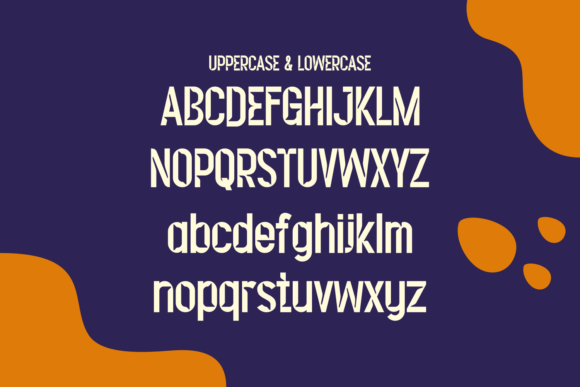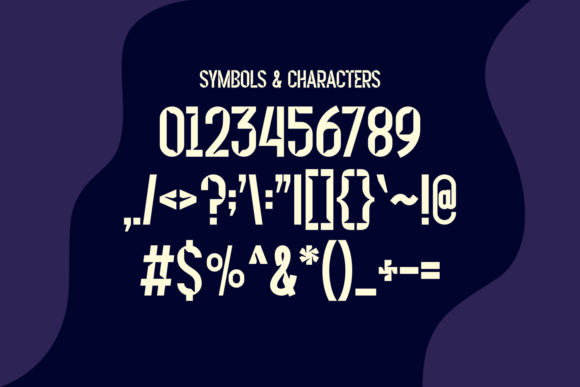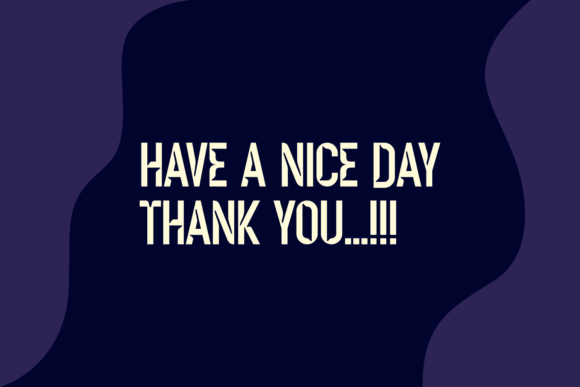
Introduction to Skyters Font
Have you ever been brainstorming a creative project and suddenly, the perfect font pops into your mind? For designers, this moment is pure magic. It’s the spark that sets the tone for an entire project, and for many, it’s the difference between a good design and a great one. This is exactly what happened when we stumbled upon the Skyters Font, a bold display font that’s perfect for making a statement.
We fell in love with its high-quality design, and we know you will too. Whether you’re working on a branding project, creating a magazine cover, or designing a t-shirt, the Skyters Font is an excellent addition to your design resource library. With its transparent background and versatility, it’s a game-changer for any creative project.
Key Features of Skyters Font
- High-quality design resource ideal for creative projects and professional use
- Unique, modern design with a transparent background, allowing for easy layering and customization
- Suitable for a wide range of creative projects, including logos, typography, and graphic design
Honest Review: Skyters Font
I recently had the chance to work with the Skyters Font for a creative project and I must say, it’s been a game-changer. The design resource is incredibly versatile and can be used for a wide range of applications, from branding to digital media.
What works well: ✨ The Skyters Font is a high-quality font with a transparent background, making it easy to overlay on any image or design. The font itself is modern and sleek, perfect for creating a professional look. I also appreciate that it’s available for free download, making it an excellent addition to any designer’s toolkit.
What doesn’t work well: ⚠️ While the Skyters Font is generally well-behaved, I did encounter some issues with font rendering on certain platforms. Additionally, the font’s complexity may make it difficult for some users to customize.
Overall, I’m thoroughly impressed with the Skyters Font. Its high quality, versatility, and transparency make it an excellent choice for designers looking to elevate their creative projects. While there are some limitations to be aware of, I believe the benefits far outweigh the drawbacks.
- High-quality font with transparent background
- Perfect for branding, digital media, and creative projects
Tips for Getting the Most Out of Skyters Font
Use the Skyters Font in combination with other high-quality design resources to create a cohesive and professional look. Experiment with different font sizes and styles to add visual interest to your design. Use the transparent background of the Skyters Font to create a clean and minimalist look.
The Skyters Font is perfect for use in a variety of creative projects, including logo designs, business cards, and social media graphics. Its high-quality design and transparent background make it ideal for use in digital designs, such as websites and mobile apps.
Yes, the Skyters Font is designed to work well with transparent backgrounds. The font’s transparent background allows designers to easily place it over images or other design elements, making it a valuable resource for designers working on creative projects.
What is the recommended resolution for using the Skyters Font?
The Skyters Font is designed to be high-quality and scalable, making it suitable for use at various resolutions. However, for optimal results, we recommend using the font at a resolution of 300 DPI or higher for print designs, and 72 DPI or higher for web designs.